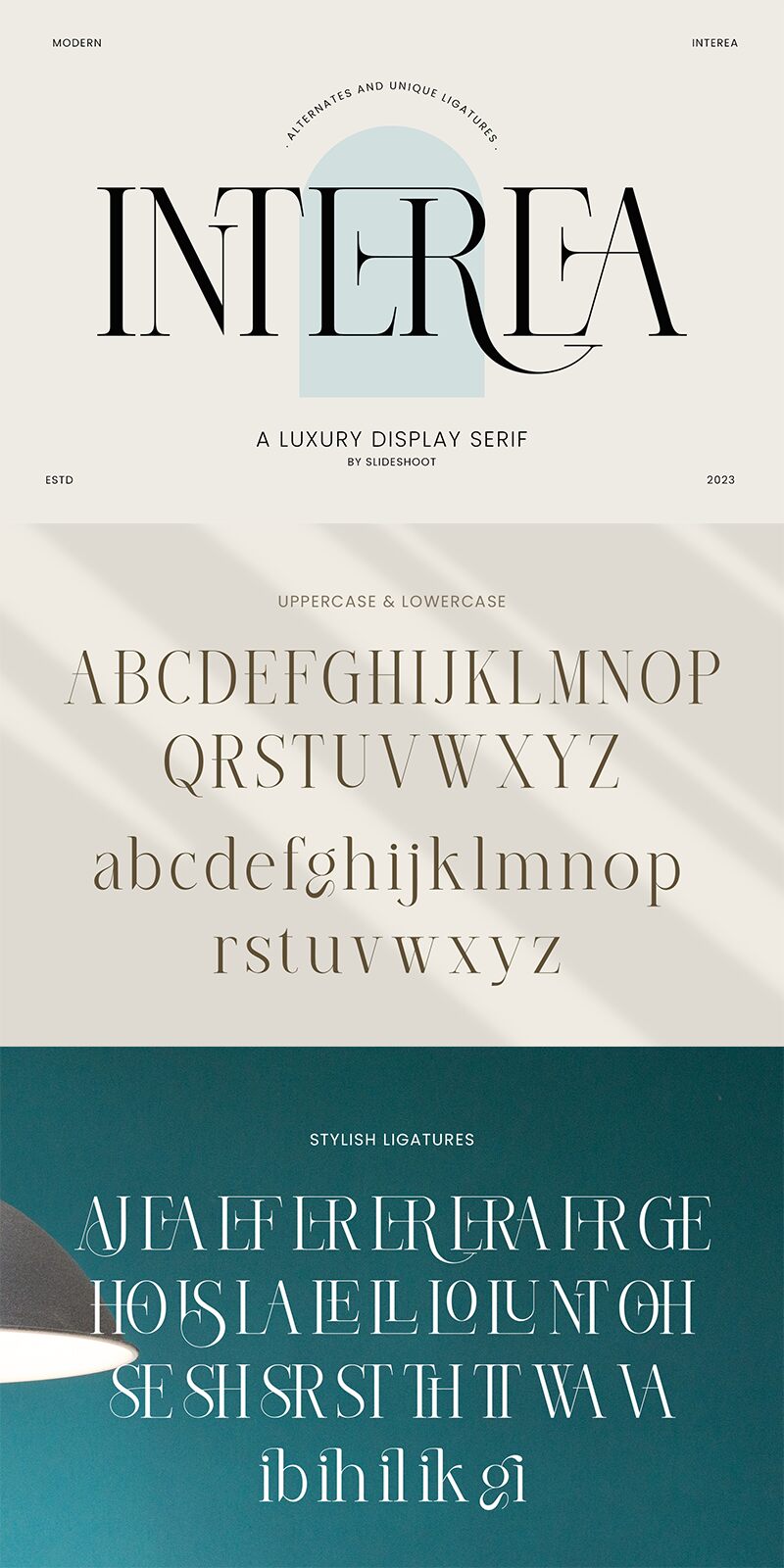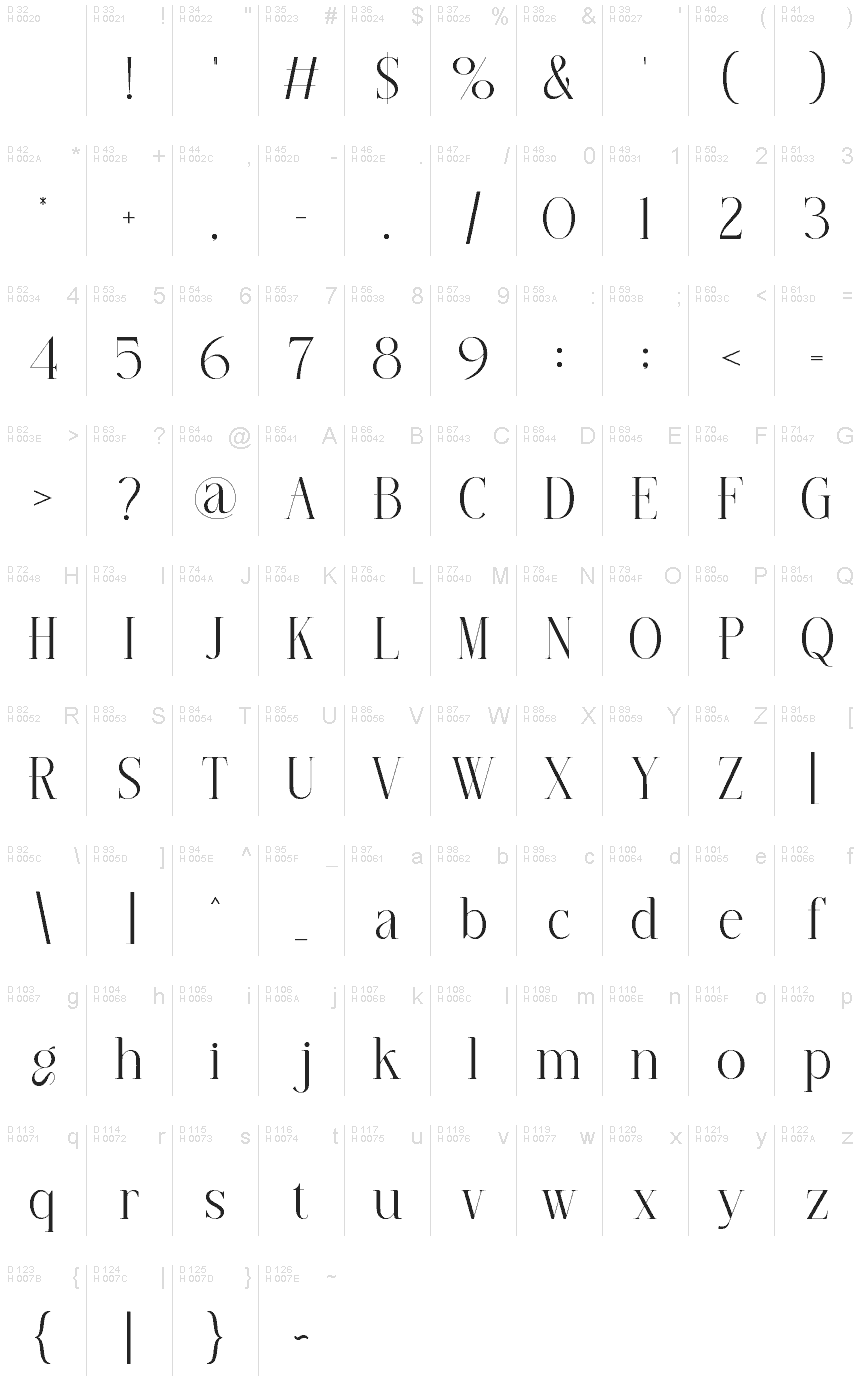
Interea
Interea font by Ahmad Riqi delivers oldern elegance with a modern twist. Every serif letter has its own energy, completely transforming the way it interacts with the other letters. This free serif font is also heavy on details like curves, swashes and pointy geometric shapes which in turn emphasize white space for even stronger effect.
This font transforms headings on posters or logos and will impress on branding materials as well. Consider Interea for business cards, envelopes or folders, book covers – even magazine covers; body text starting from invitations going to books; website design (interface or background use); blog banners among lots more.